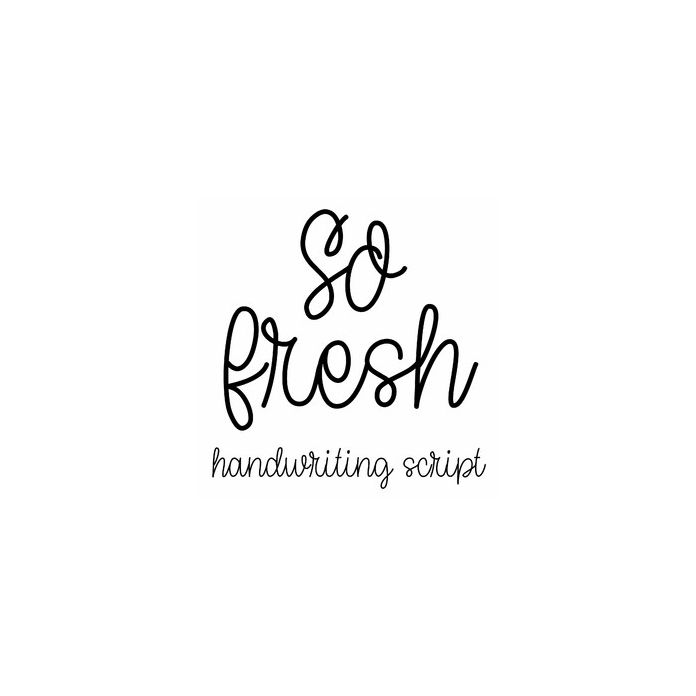
so fresh handwriting script font
So Fresh is a cute handwriting script font for cards, projects, monograms, crafting and more. Includes alphabet, numbers, and punctuation.